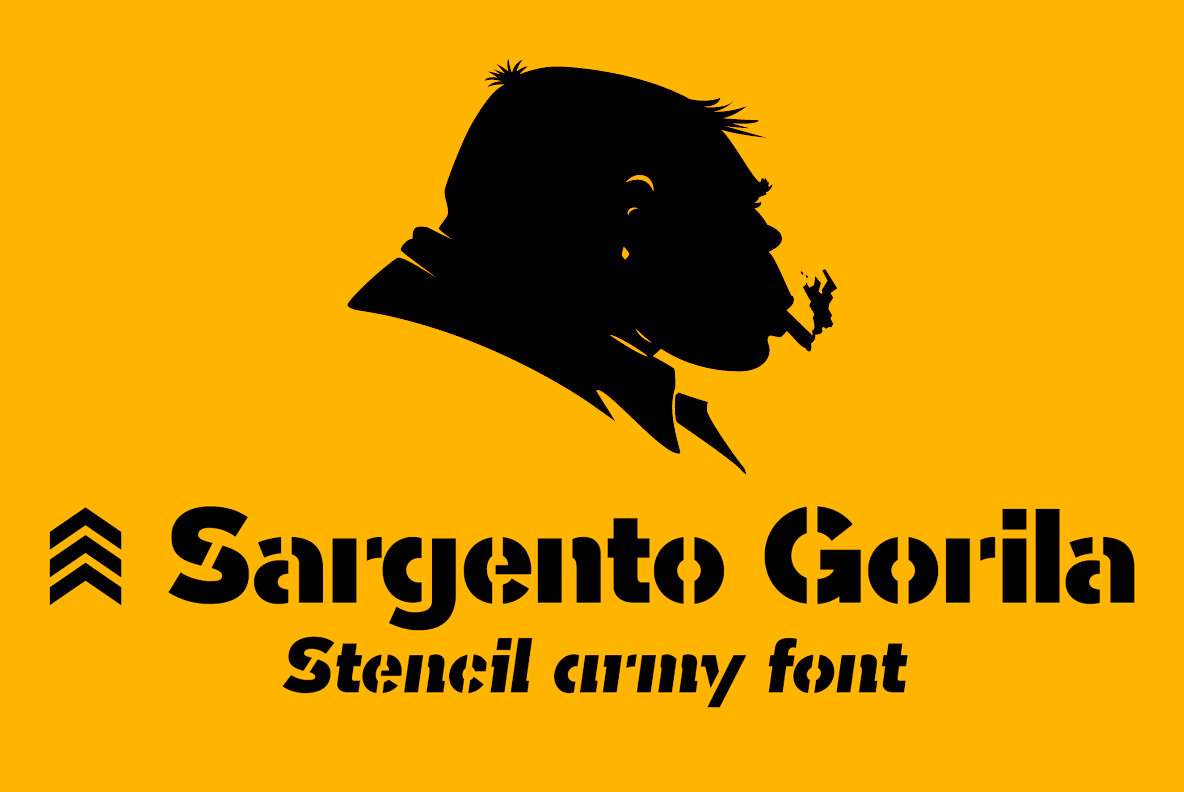
Sargento Gorila 2 fonts
Sargento Gorila is a military style, sans stencil typeface. Includes the Cyrillic alphabet and Latin Extended-A, several monetary symbols, alternative letters and various ligatures.
- Latin Extended-A & Cyrillic alphabet
- OpenType Functions: Stacked Fractions, Historical Forms, Kerning, Localized Forms, Capital Spacing, Standard Ligatures, All Alternates, Additional languages, Fractions.
Use ligatures:
- Two Bitcoin symbols: (b#, B#)
- Sergeant symbol: a#
- Sargento Gorila (dlig): SGT